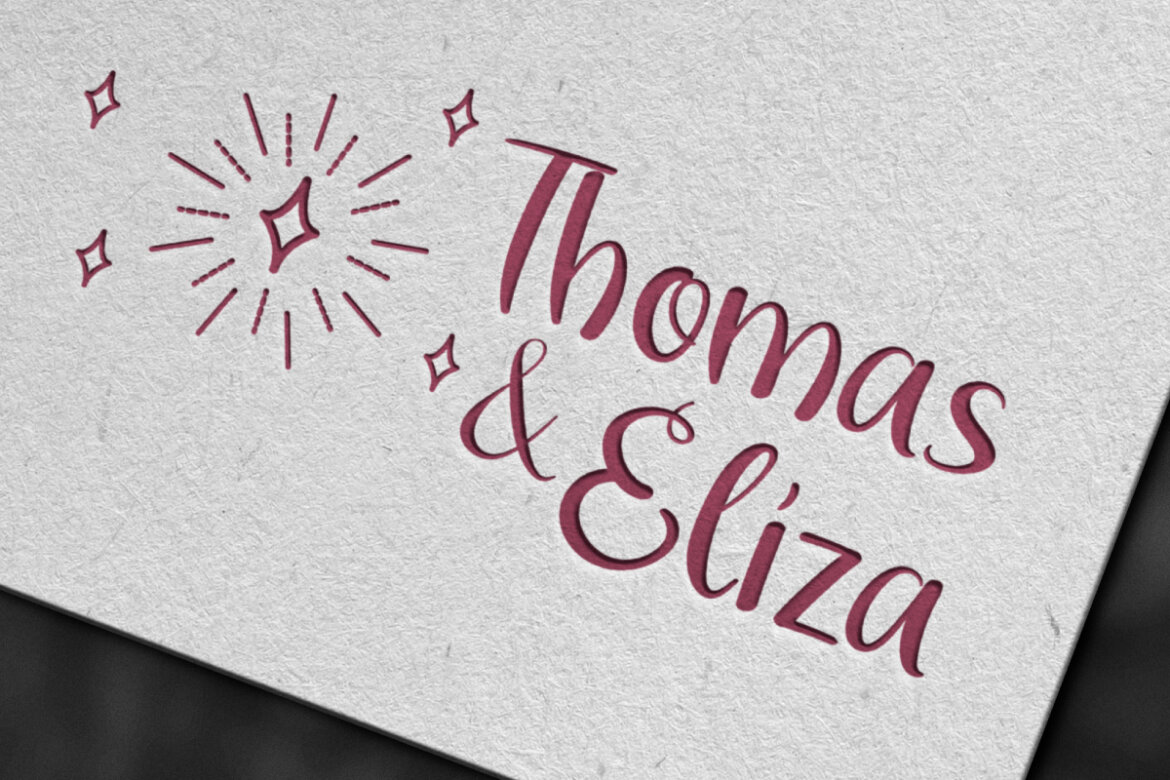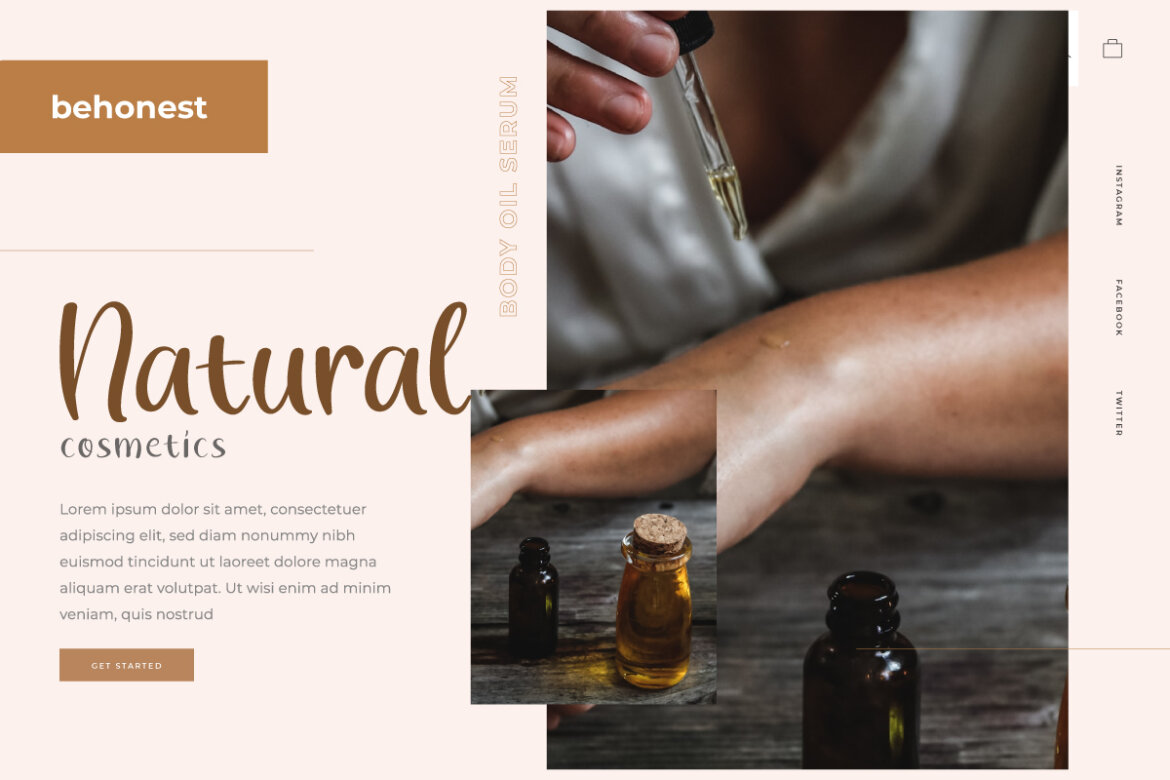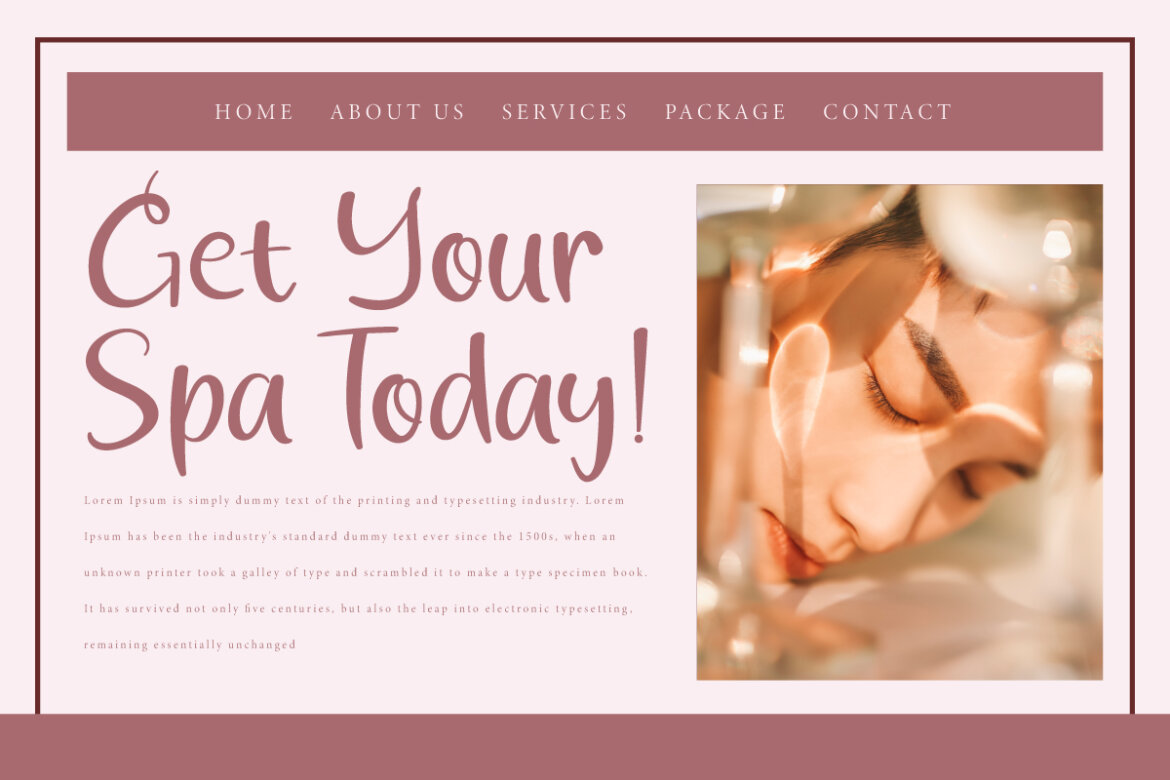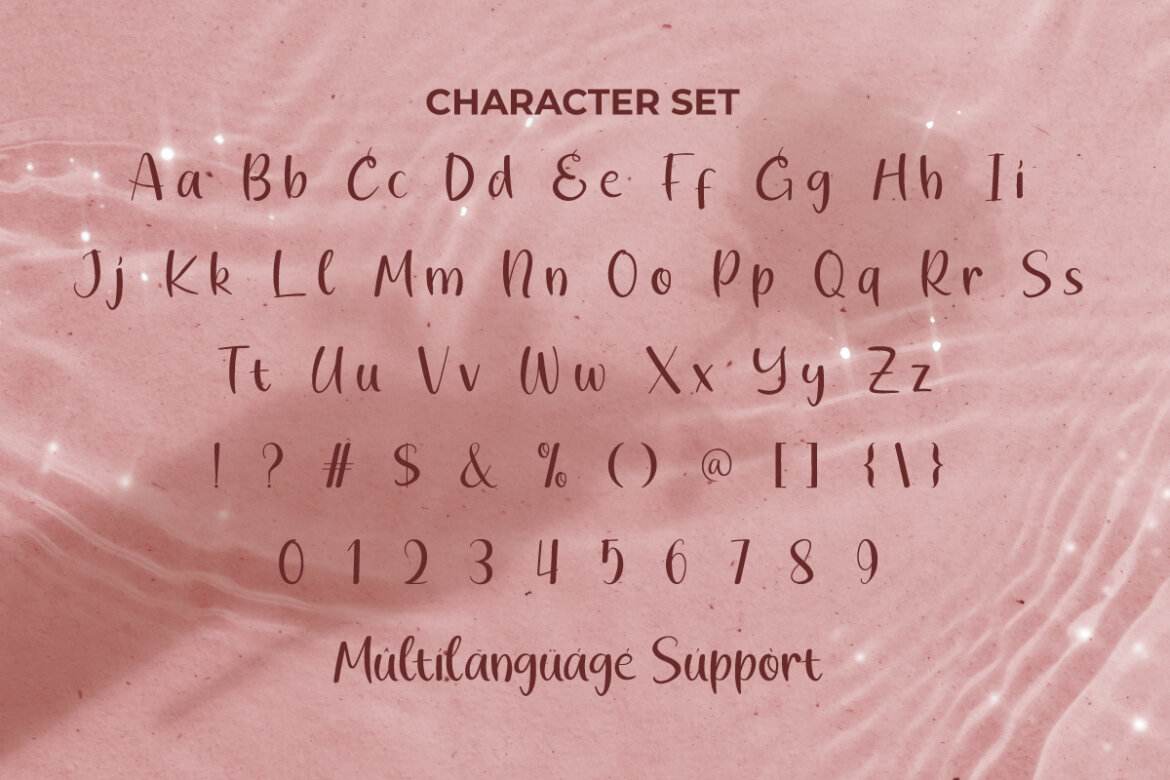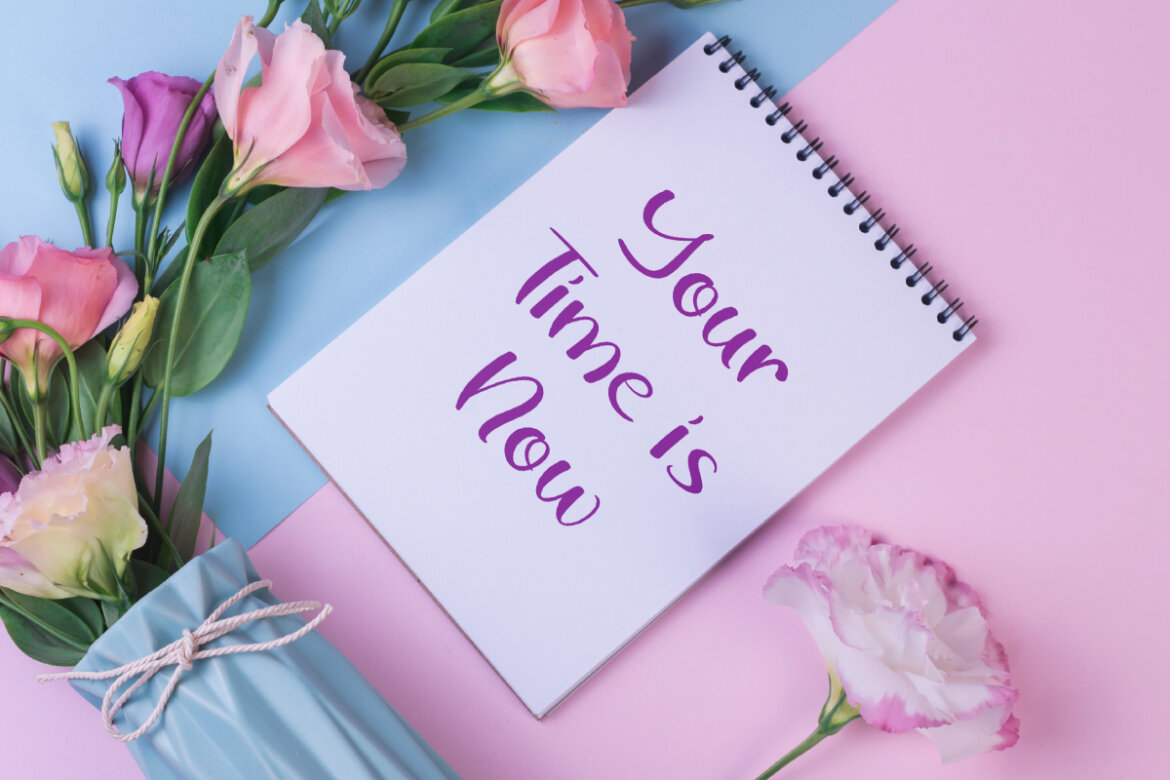
Glow Curly FREE Font
Glow Curly
Glow Curly Font is a stunning and eye-catching display font with a natural touch. Like the name, it shines and curls!. Handmade directly to give your design a special and personal touch. It will be perfectly used for book covers, brochure, branding, greeting cards, label, logo design, headers, lettering, logotype, magazine, mockup template, packaging, pamphlet, posters, quotes, shopping bags, t-shirts, websites, and other design project.
Glow Curly Font is perfect for your creative ideas, both formal and informal. It has a beautiful creative appearance so it will be easy to apply anywhere that needs a popular and professional font style. Use this for apparel, birthday parties, cafeteria, cosmetic, florist, food franchise, gardener, graphic design, handicraft, jewelry, photography, restaurant, skincare, spa salon, travel agency, wedding, and much more.
Glow Curly Font comes with a complete set of Uppercase and Lowercase Basic Characters, Number, a large range of Punctuation, and Symbol. It is supported with multilingual characters and ready to use both on Windows machine or Mac with simple installations. It’s tested to work well in the Adobe Apps (Illustrator, Adobe InDesign, Adobe Photoshop) CorelDraw, and others. PUA Encode Characters means you can access all the characters easily – Fully accessible without additional design software.